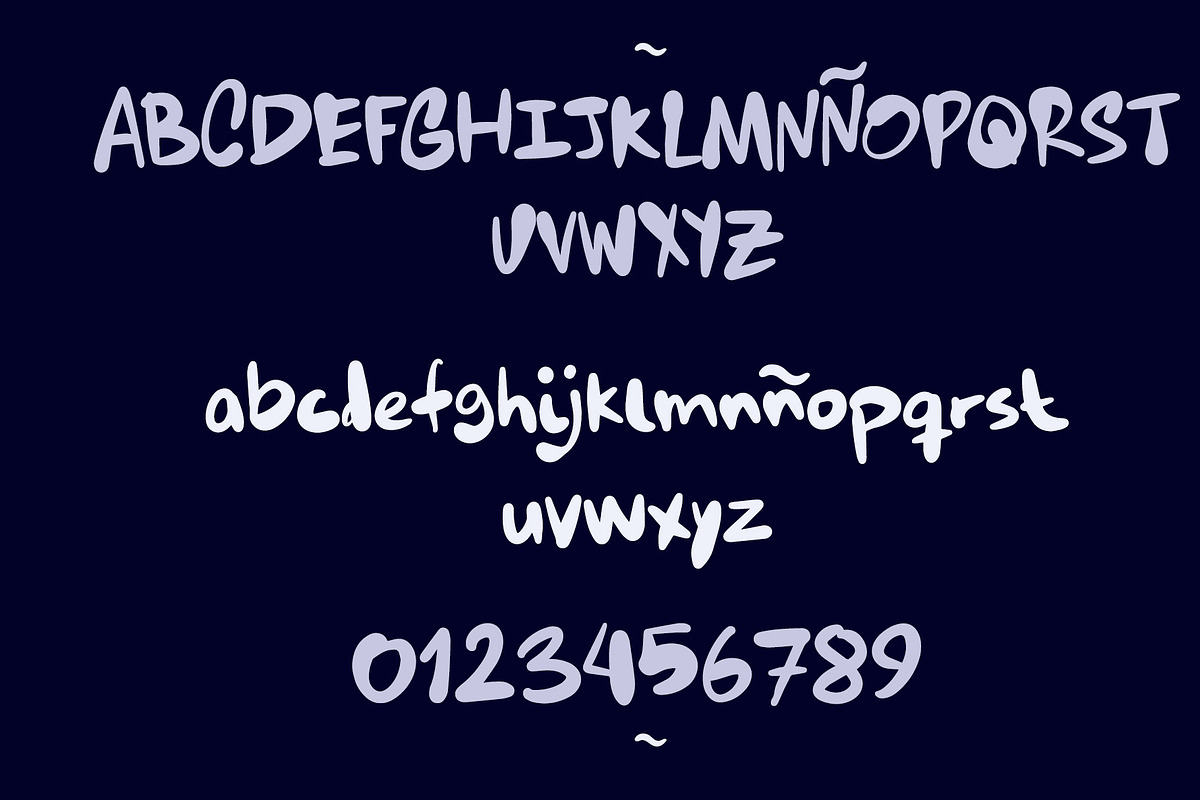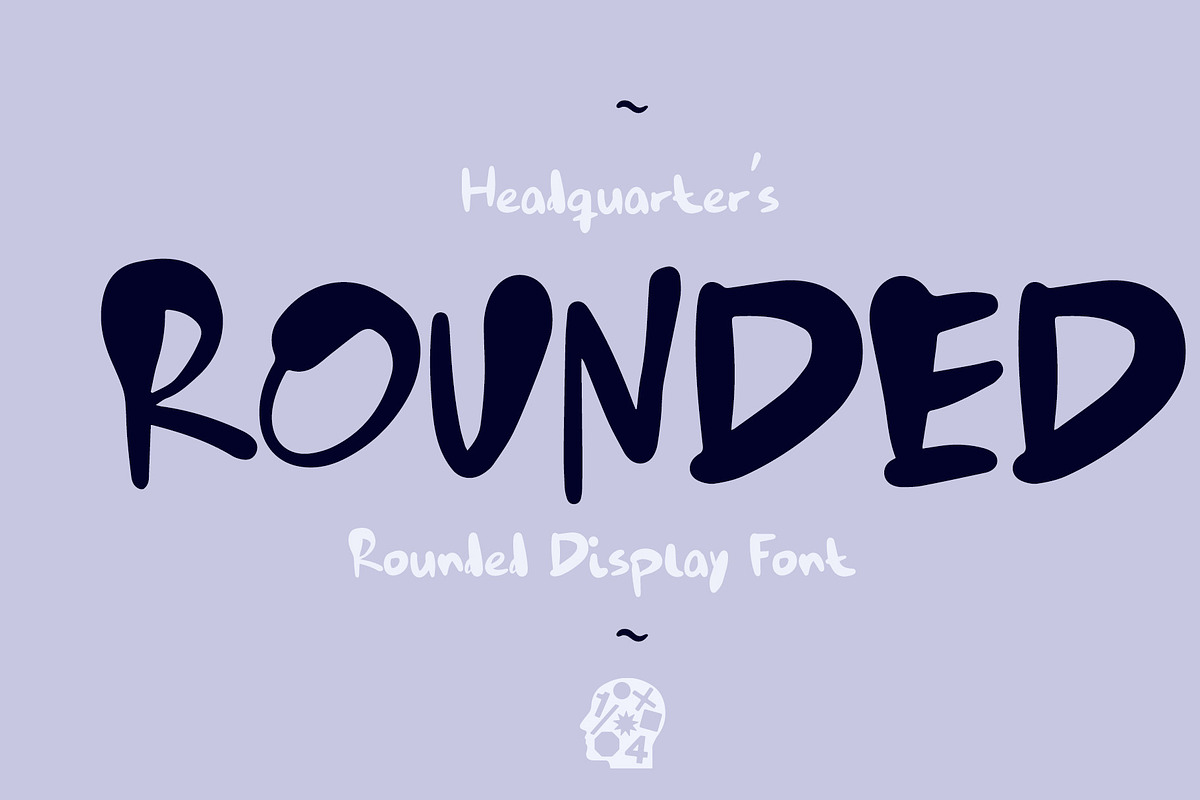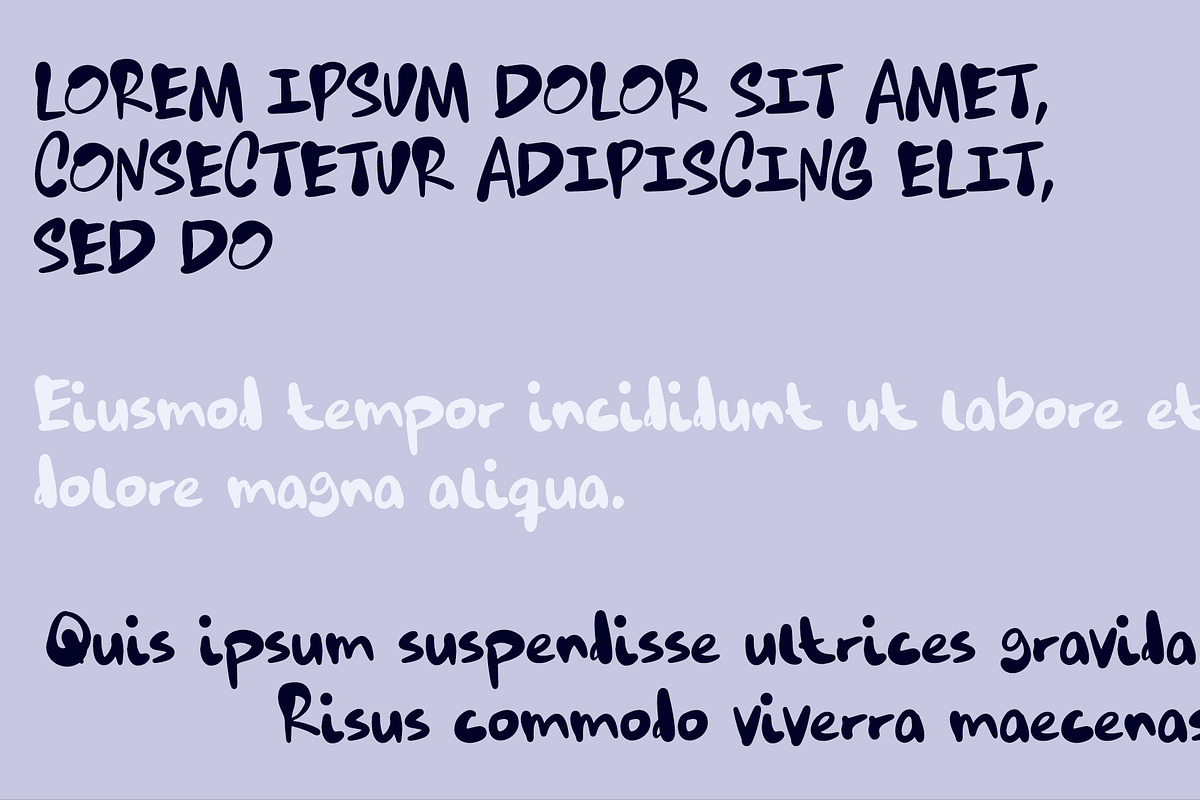
Rounded
"Rounded" is a charming and friendly handmade font that brings a warm, approachable feel to any project. Its softly curved edges and uniformly rounded letters create a cozy, inviting atmosphere, perfect for casual designs, children's materials, and informal branding.
The font's gentle and unpretentious style makes it ideal for crafting messages that resonate with a sense of comfort and ease. Whether you're designing greeting cards, cafe menus, or playful advertisements, Rounded offers a touch of heartfelt simplicity, making your designs feel more personal and engaging.
Embrace the simplicity and warmth of Rounded, where every letter is a gesture of friendliness and approachability.